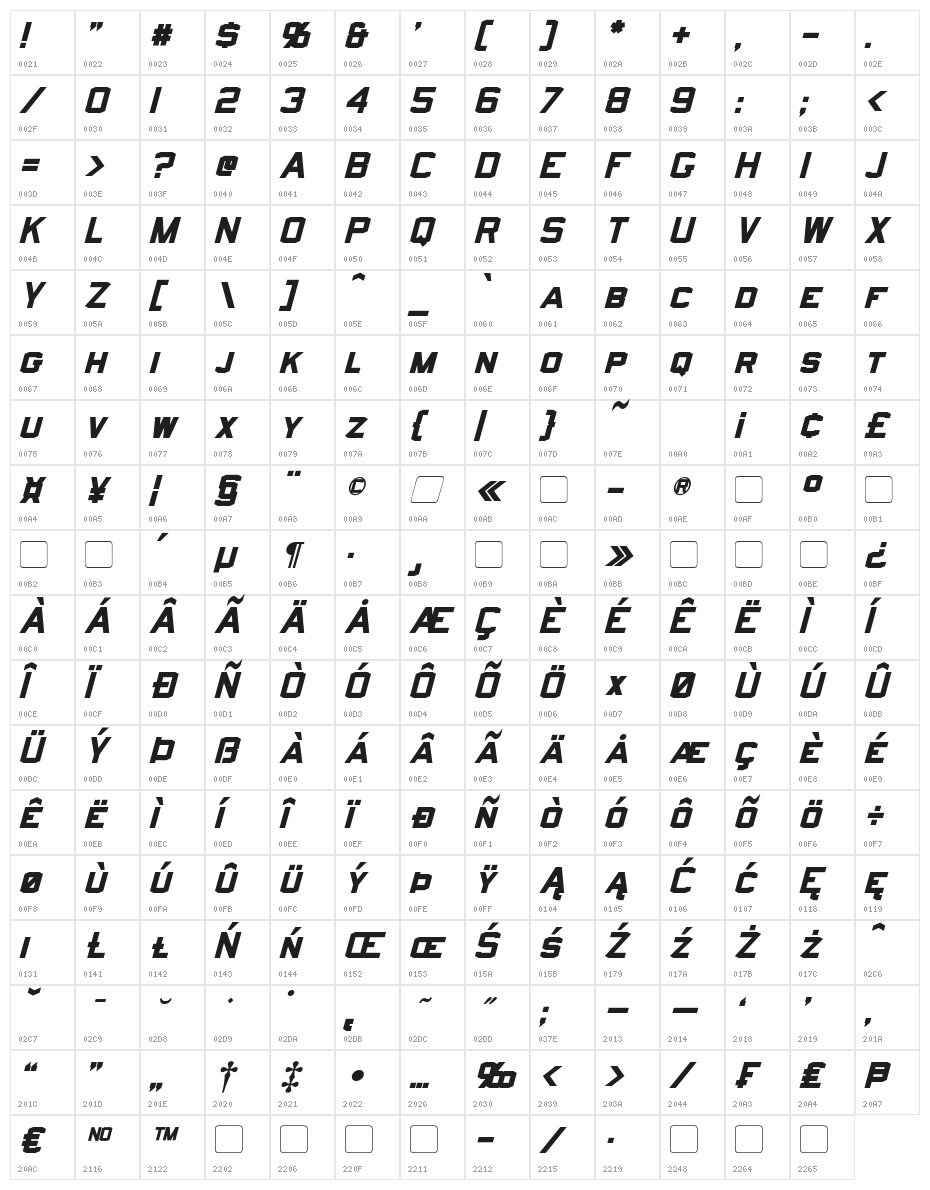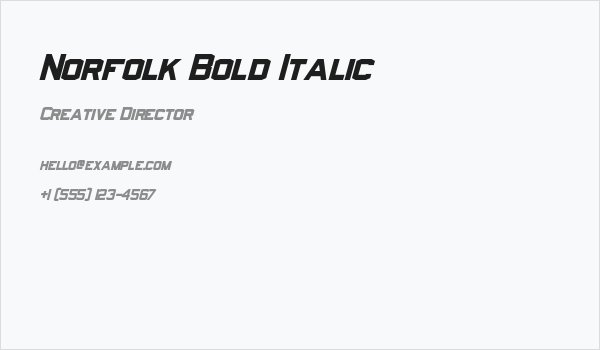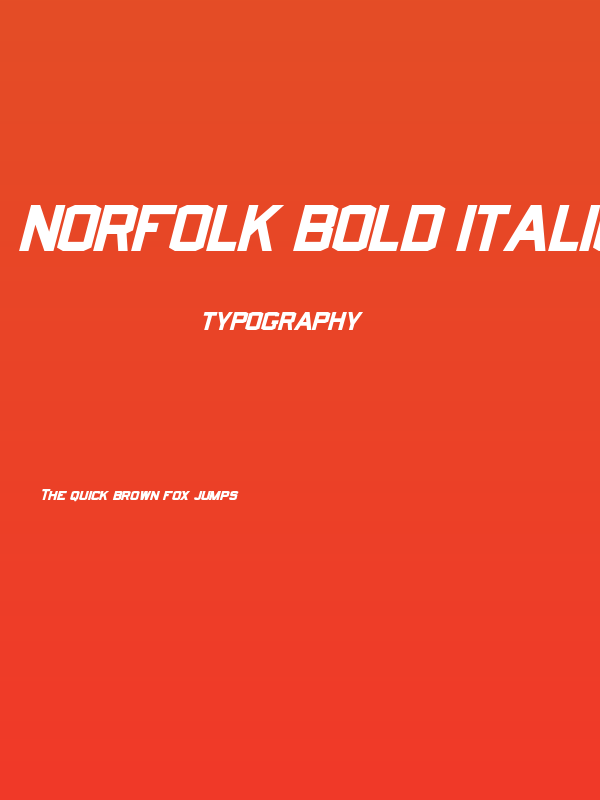
Norfolk Bold Italic Font
Norfolk Bold Italic Description
This font features a bold and italicized style with a strong, dynamic presence. The characters are slanted, giving a sense of motion and energy. The strokes are thick and consistent, providing a robust and impactful appearance. The angular design of the letters adds a modern and edgy feel, making it suitable for attention-grabbing headlines or branding. The spacing between characters is tight, enhancing the compact and cohesive look of the text. This font's boldness and italicization make it stand out, ensuring that any message conveyed is both clear and striking.
| Proposed Projects | Ideal for sports branding, dynamic posters, and impactful headlines. |